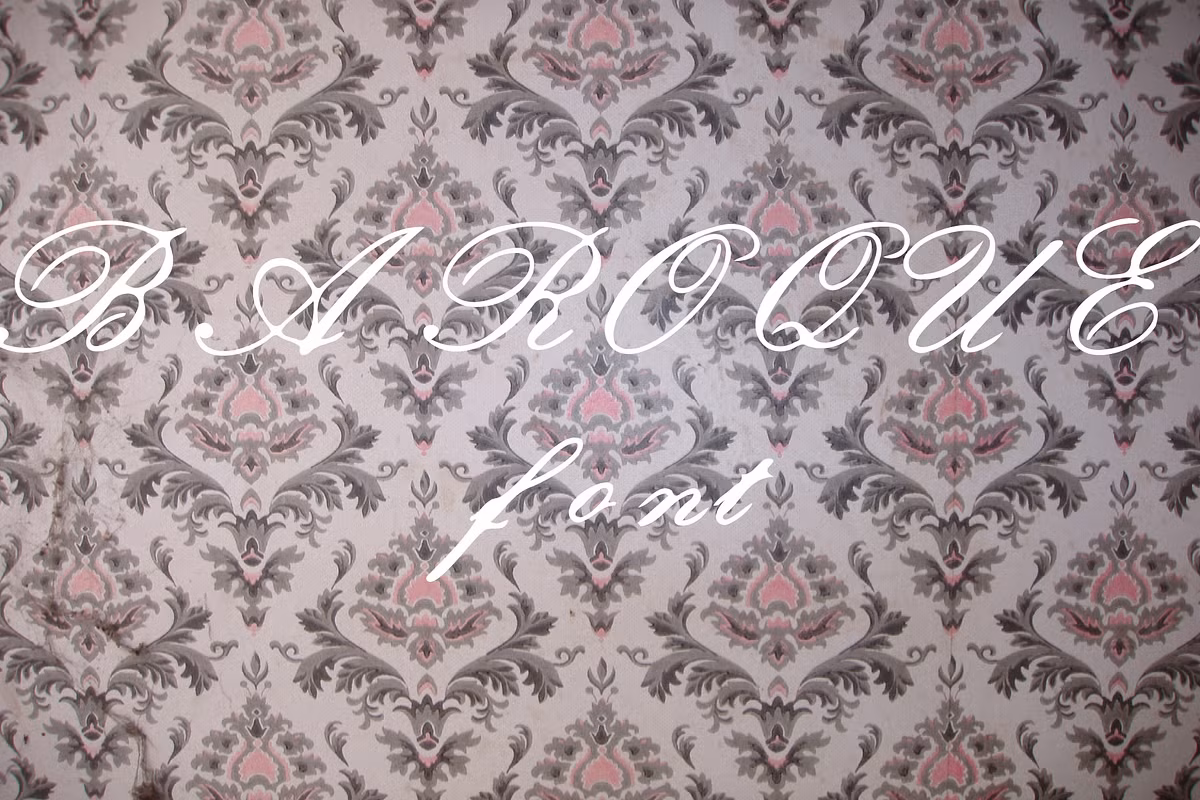
Baroque Komaiza Font is perfect for luxury brand identities, classical music promotions, fine art gallery materials, museum exhibition designs, aristocratic wedding invitations, prestigious cultural events, historical publications, opera house signage, royal ceremony materials, heritage foundation communications, classical concert programs, and sophisticated artistic projects.
Baroque Komaiza Font is exciting because it embodies the magnificent grandeur and ornate elegance of the Baroque era through elaborate letterforms that celebrate artistic opulence and cultural sophistication with unparalleled visual richness. This magnificent typeface features intricate decorative elements and flowing curves that capture the essence of 17th-century artistic mastery and aristocratic refinement. The font's regal character transforms every message into a declaration of artistic excellence and cultural prestige.
Baroque Komaiza Font includes comprehensive font families: Regular Ornate Style, Bold Majestic Weight, Light Elegant Touch, Medium Royal Balance, Italic Flowing Grace, Condensed Palace Format, Extended Imperial Width, Decorative Flourish Elements, Shadow Royal Effects, and Special Aristocratic Symbols, providing complete solutions for prestigious and culturally sophisticated design requirements.
This magnificent typography solution transforms ordinary communications into extraordinary cultural experiences through its authentic Baroque aesthetic and aristocratic design language. Baroque Komaiza Font Free Download enables designers and cultural institutions to access premium ornate typography that instantly adds grandeur, sophistication, and artistic prestige to any creative project. The font's exquisitely crafted ornamental details ensure maximum visual impact while maintaining readability and authentic Baroque character.
Cultural institutions, luxury brands, and prestigious organizations trust Baroque Komaiza Font for its ability to communicate refinement, heritage, and artistic excellence to discerning audiences who appreciate classical beauty and cultural sophistication. The typeface's elaborate construction performs beautifully across various applications, from intimate cultural invitations to grand institutional signage. Its extensive character support includes multilingual capabilities and ornate design elements that enhance prestigious brand presentations.
The design heritage behind Baroque Komaiza Font draws from the golden age of Baroque art, classical architecture, and the ornate decorative traditions that defined European aristocratic culture and artistic achievement. This culture-focused approach creates a font that feels genuinely aristocratic while maintaining contemporary usability across different classical contexts and prestigious brand expressions.
Whether creating cultural institution identities, luxury classical brands, or aristocratic event materials, this Baroque font delivers exceptional results that embody artistic grandeur and cultural prestige. Download Baroque Komaiza Font today and discover how premium ornate typography can transform your design projects into magnificent expressions of classical beauty, artistic heritage, and the timeless elegance that defines Baroque sophistication and cultural excellence.